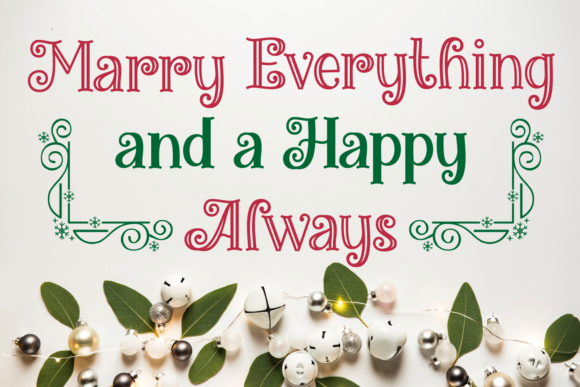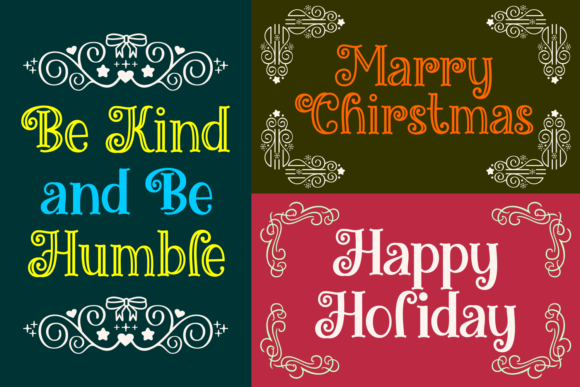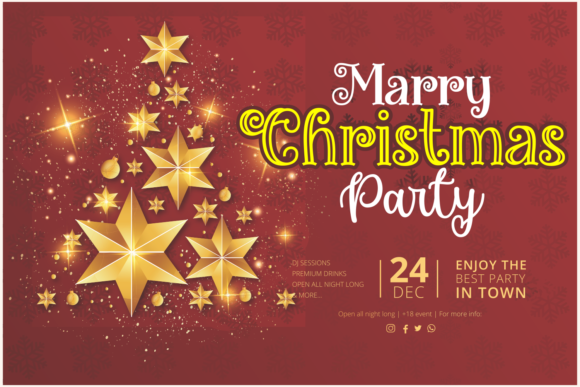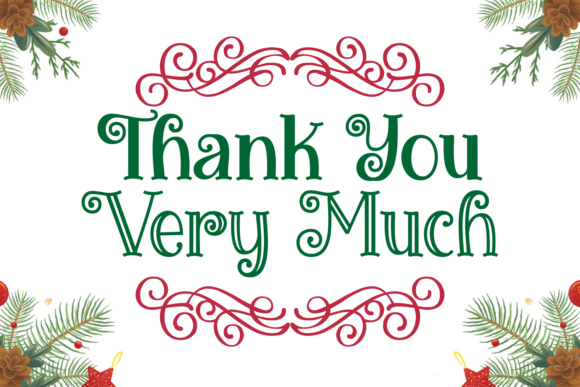
Introduction to Miracles Christmas Font
Miracles Christmas is a rich and festive looking display font.
It is ideal for holiday-themed greeting cards and for any crafting project that requires a joyful touch .